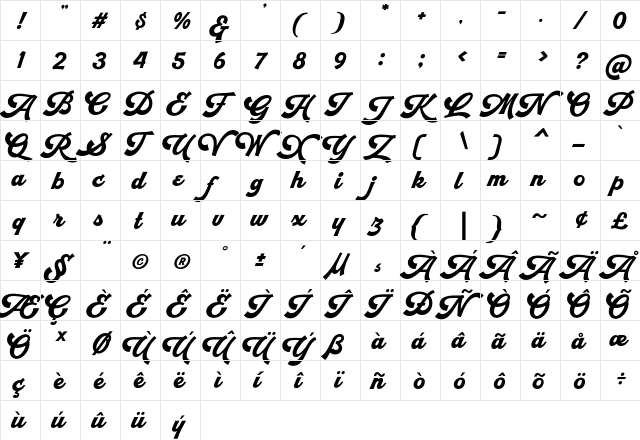
Retrofunk Script Personal Use Regular
Design Context for Retrofunk Script Personal Use Typeface
Retrofunk Script Personal Use has the warm character of retro typography — evoking diners, record sleeves, and the golden age of print advertising.
Ideal for diner signage, record shop branding, 70s/80s-themed projects, and heritage product labels.
Font Pairing: Combine Retrofunk Script Personal Use with a simple slab or neutral sans — period-accurate companions reinforce the vintage feel without competing for attention.
Pro Tip: Lean into Retrofunk Script Personal Use's period character by pairing it with aged paper textures, muted colour palettes, and vintage illustration styles.